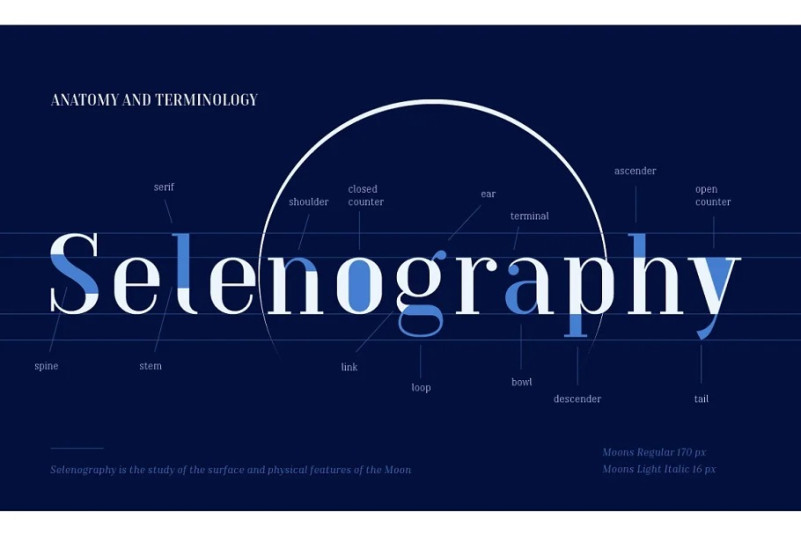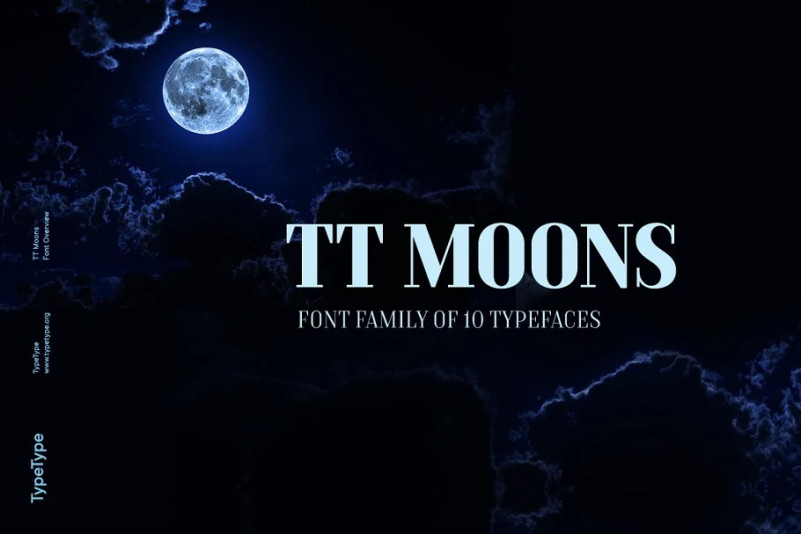
TT Moons Font
TT Moons Serif Font is a slim and contrast serif. This font family works especially smart in classic design themes. TT Moons is a typeface of the glyptal modern font family. The ideal application range for this typeface is magazines, books and newspapers layout.
5 weights & 5 true Italics
415+ glyphs for each typeface
Supports 158 languages (incl. Cyrillic)*
Thanks to its narrow proportions and 5 weights (Thin, Light, Regular, Bold, Black), TT Moons perfectly fits into any contemporary digital design, such as interactive and product design, editorial and corporate web design. This font family is the real work helper and your joker when you need to combine contemporary and classic styles.